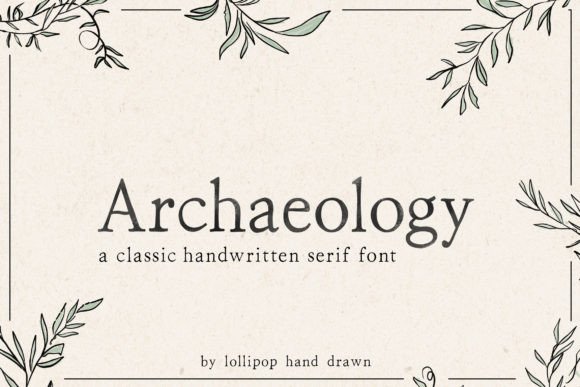
The Hunt for the Perfect Font: How Archaeology Font Stole My Heart
I still remember the design project that led me to discover the Archaeology font. I was working on a custom invitation for a client’s wedding, and I was determined to find the perfect typeface that would make it stand out. After hours of scrolling through font libraries and trying out different combinations, I stumbled upon Archaeology – an authentic serif font that instantly caught my attention.
What Makes Archaeology Font So Special?
Archaeology is more than just a beautiful font – it’s a statement piece that can elevate any design. With its classic serif style and elegant flair, it’s perfect for adding a personal touch to letters, name tags, business cards, invitations, and more.
Here’s what I love about Archaeology font:
- ✨ Elegant and sophisticated design that’s perfect for formal events
- 💬 Supports OpenType features, glyphs, and stylistic alternates for added versatility
- 📚 Works beautifully on both digital and print materials
And here are some minor quirks to keep in mind:
- 🤔 Some users may find the font a bit too ornate for casual designs
- ⚠️ Limited availability of certain glyphs and special characters
The Story Behind Archaeology Font
Archaeology font was designed with a passion for history and a love for typography. The designer aimed to create a font that would evoke the sense of discovery and exploration that comes with unearthing ancient artifacts. The result is a font that’s both elegant and authentic, perfect for adding a touch of sophistication to any design.
| What is the best way to use Archaeology font? | Archaeology font is versatile and can be used for a variety of design projects, including invitations, business cards, and letters. |
| Is Archaeology font suitable for digital use? | Yes, Archaeology font works beautifully on digital platforms, including websites, social media, and email newsletters. |
| What are some common OpenType features and glyphs available in Archaeology font? | Archaeology font supports a range of OpenType features, including ligatures, stylistic alternates, and glyphs for special characters. |